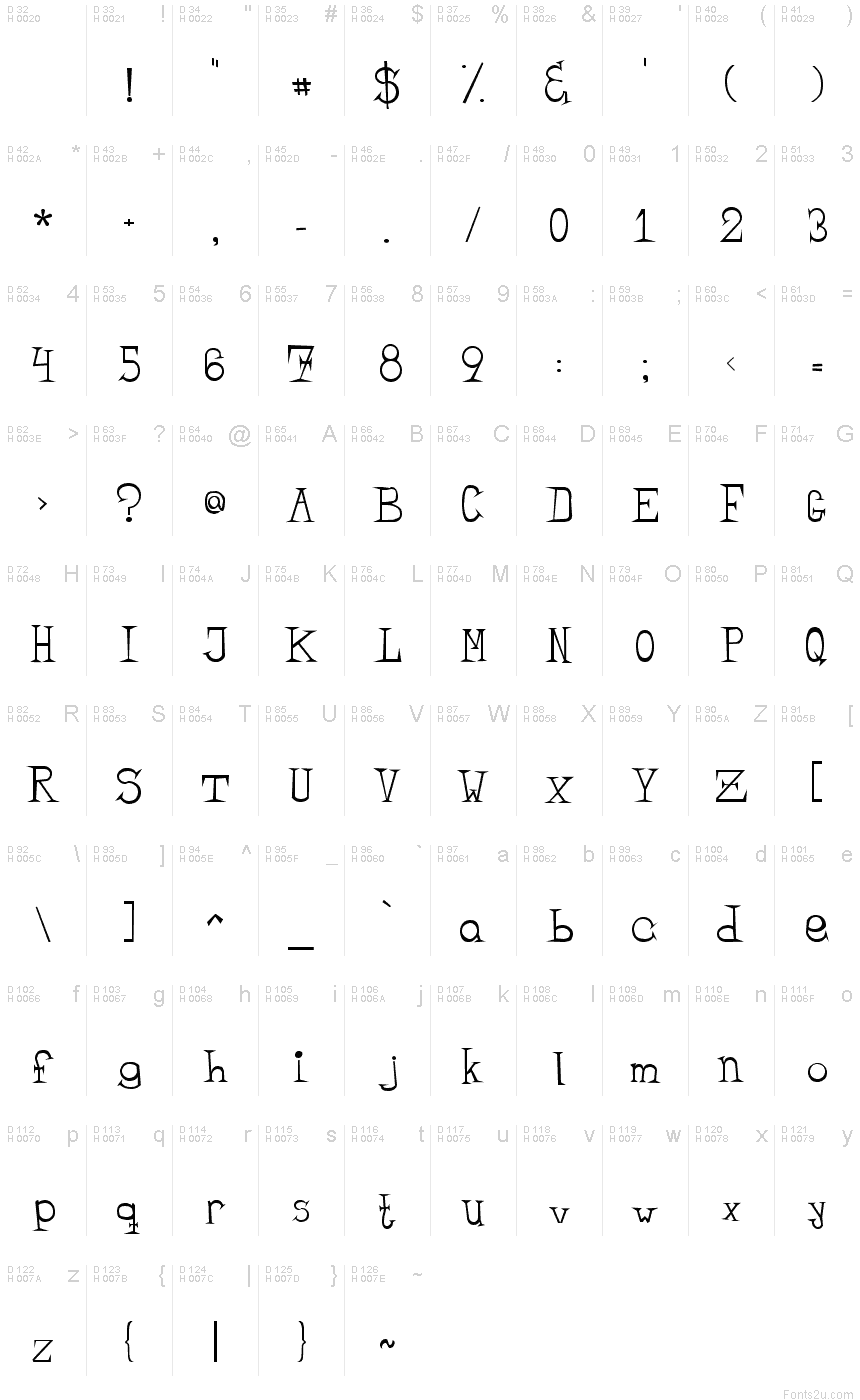
Bandit Regular
Bandit font by Buddha Graphix is a free distorted display typeface that looks like it’s been scrawled by a mischievous hand. Tall, wiry stems wobble just enough to feel unstable, while the chunky curves and hooked endings give each letter a sly, crooked grin. The texture feels slightly inky and imperfect, as if dragged across paper with a scratchy marker, adding instant tension and personality to any word you set.
Using Bandit, headlines snap to attention on gig posters, creepy-comic book covers, Halloween invitations, escape room branding, indie game titles, and edgy zines. This free font thrives at larger sizes, where its bent lines and uneven rhythm can breathe and show off their attitude. Pair it with a plain, modern sans serif for body text to keep everything readable while Bandit steals the spotlight in your titles.